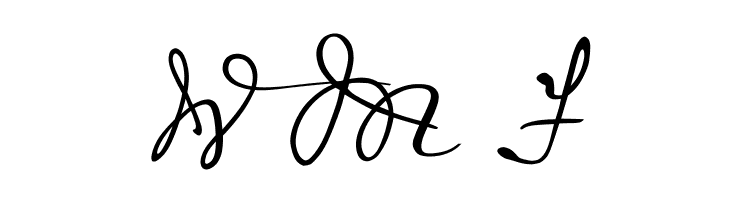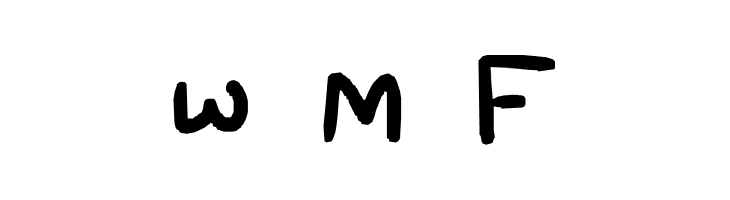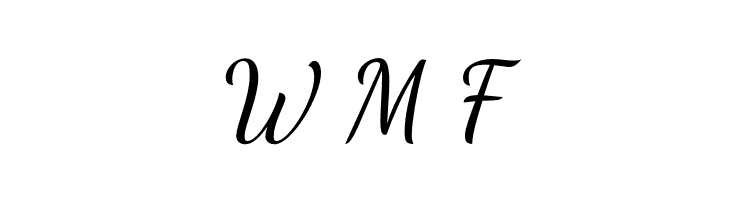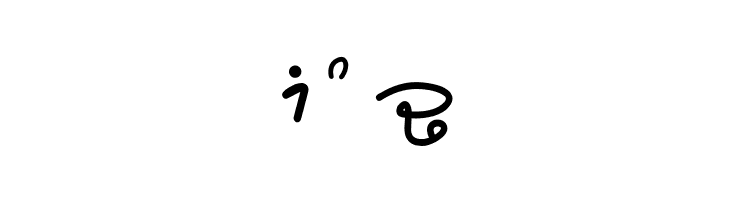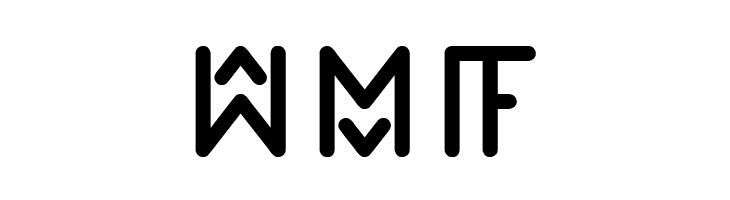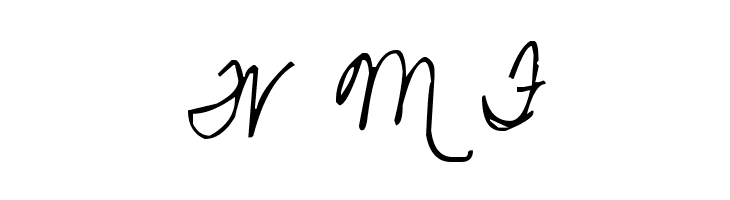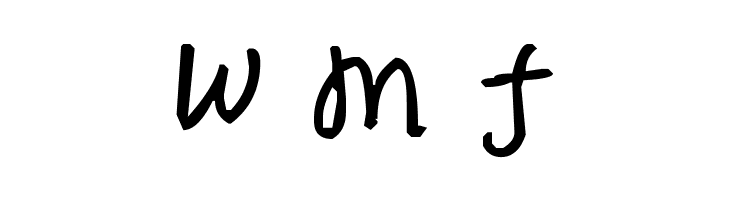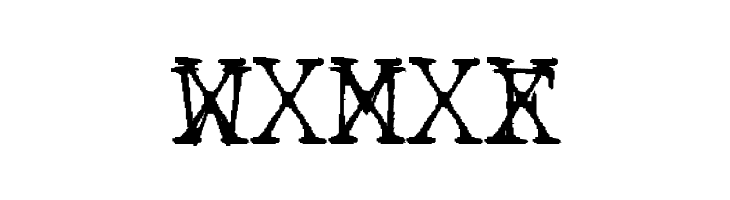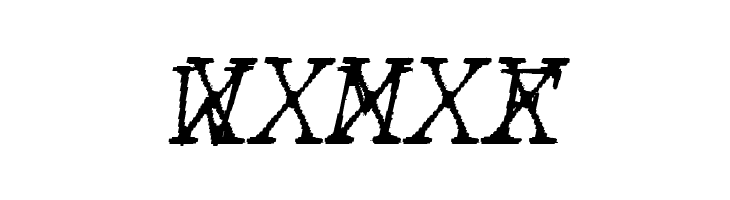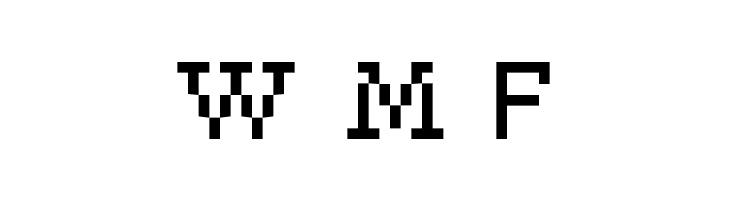
An abstract, circuit-like design with interconnected circular and linear elements.
A playful, bubbly font with characters formed by interconnected dots, ideal for creative projects.
A playful, bubble-inspired font with interconnected dots creating a whimsical look.
A playful, bubble-like font with rounded, interconnected shapes.
A cursive, handwritten-style font with flowing, interconnected characters.
An elegant and decorative script font with flowing, interconnected letters.
A modern, cursive italic font with smooth curves and elegant connections.
A lively, cursive script font with smooth, flowing connections.
A classic, elegant handwritten script with fluid, connected characters.
A casual, handwritten font with a flowing and connected style.
A dynamic and elegant cursive font with flowing, interconnected strokes.
A bold, cursive script with fluid, connected characters and a dynamic style.
A dynamic and elegant script font with flowing, connected letterforms.
A playful, bubble-like font with interconnected circles, ideal for creative projects.
A playful, geometric font made of interconnected circles.
A geometric, futuristic font with angular, interconnected letterforms.
A playful handwritten font with fluid, connected letterforms and a casual aesthetic.
A geometric, maze-like font with bold, interconnected lines and a modern artistic style.
A playful, handwritten script with fluid, connected strokes.
A casual, handwritten font with fluid, connected strokes.
A playful cursive font with flowing, interconnected letterforms.
A playful handwritten script font with flowing, connected letters and whimsical flair.
A playful, casual handwritten font with fluid, connected strokes.
A playful, handwritten script with flowing, connected letters and a casual aesthetic.
A playful, casual handwritten script with fluid, connected letters and a personal touch.
A lively, handwritten script font with elegant, flowing connections.
A playful, casual handwritten font with fluid, connected letterforms.